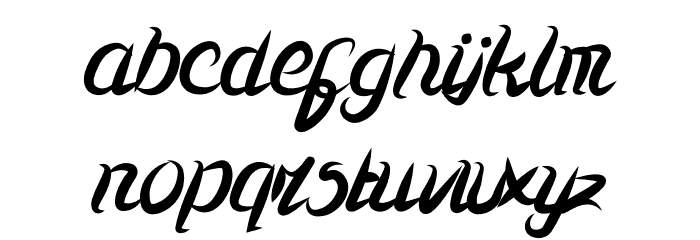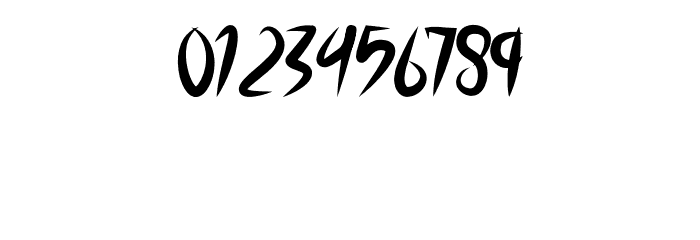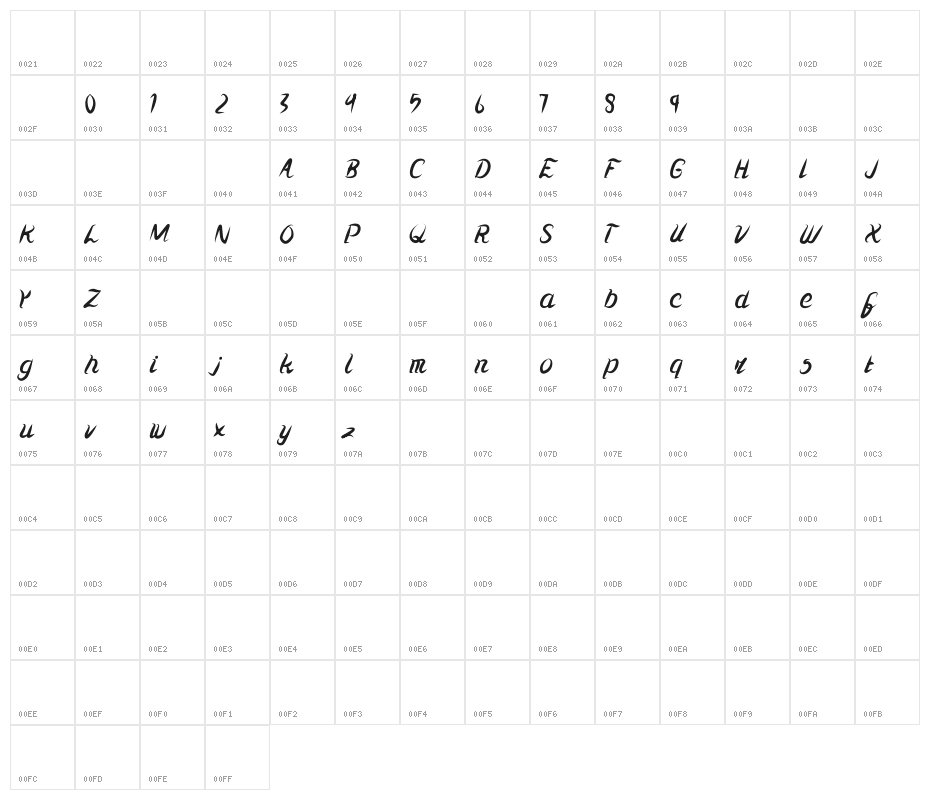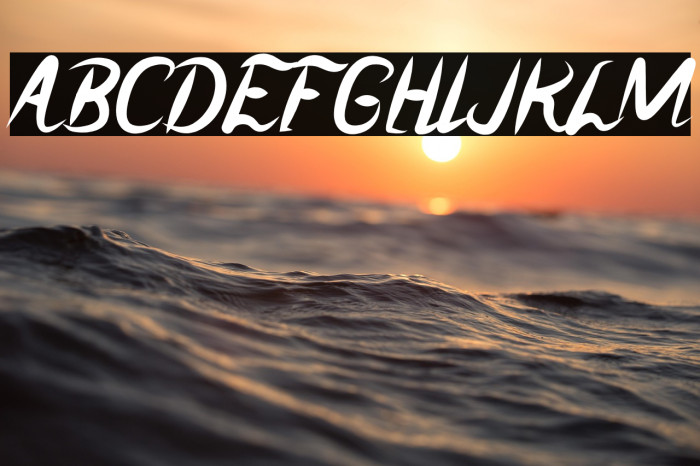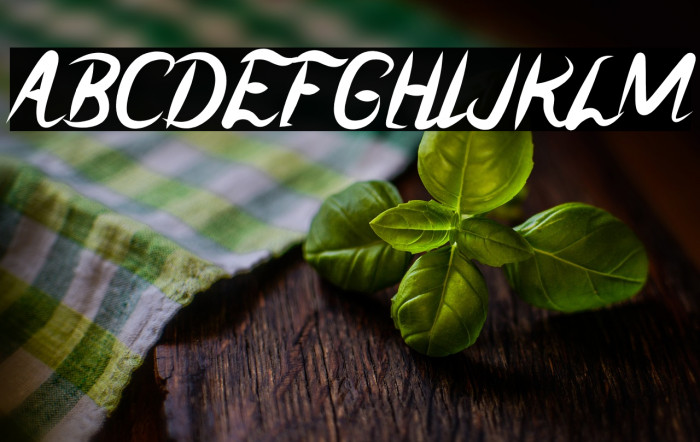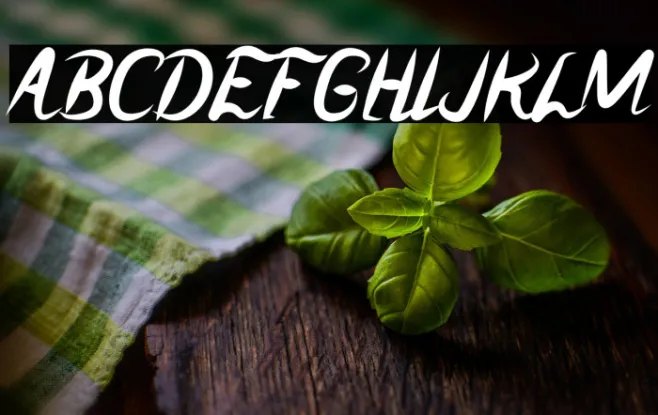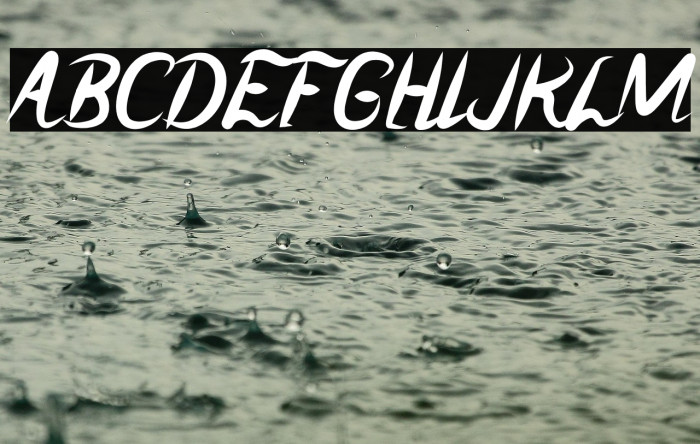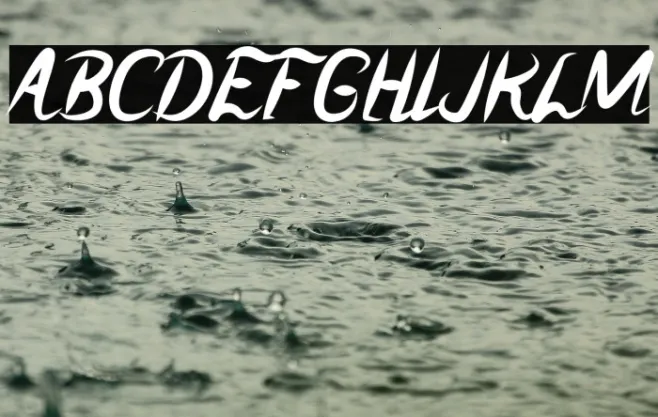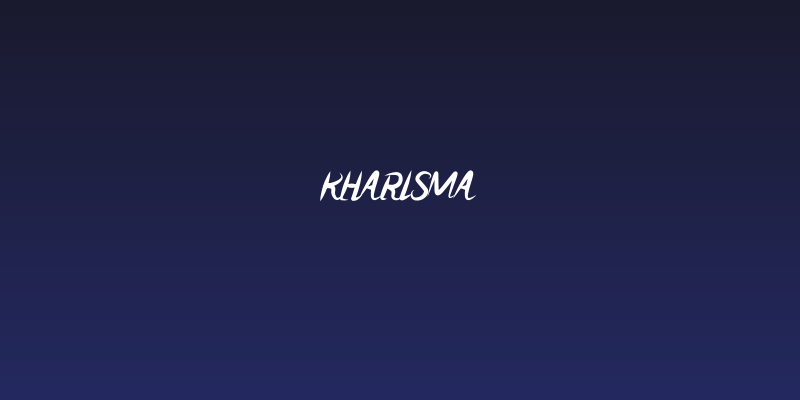
Kharisma Font
This font features a dynamic and flowing script style, characterized by its elegant curves and smooth connections between letters. The uppercase letters are bold and prominent, with a slight slant that adds a sense of movement and grace. The lowercase letters maintain a consistent style, with rounded forms and fluid strokes that enhance readability while preserving the artistic flair. The numerals are well-integrated into the overall design, maintaining the same flowing aesthetic. Special characters are crafted with the same attention to detail, ensuring a cohesive look across all text elements.
A dynamic and elegant script font with flowing curves and smooth connections.
- Font: Kharisma
- Proposed Projects: Ideal for wedding invitations, elegant branding, greeting cards, and artistic posters.
- Category: Script
- Overall Style: Elegant
- Use Case: Logos, Invitations, Decorative text